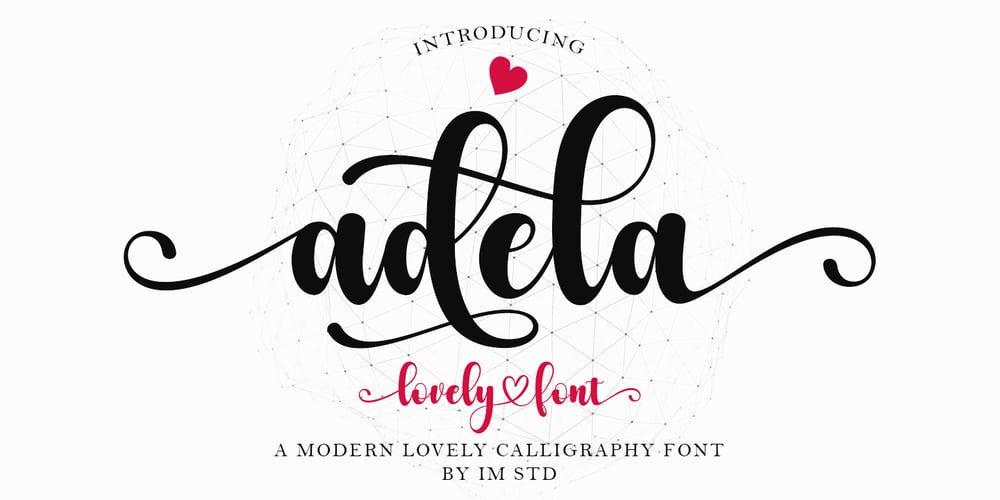
Adela Font Family was designed by Ikhsan Maulana and published by IM Studio. Adela contains 1 styles and family package options. Adela Script is modern calligraphy. Bold, elegant & fun vintage script font. Can be used for various purposes such as logos, wedding invitations, t-shirts, letterhead, signage, news, posters, badges etc.Adela Script features glyphs and alternate characters, ligatures, swashes, and multiple language support.To enable the OpenType Stylistic alternative, you need a program that supports OpenType features such as Adobe Illustrator CS, Adobe Indesign & CorelDraw X6-X7.How to get access to alternative glyphs from open type fonts: http://youtu.be/iptSFA7feQ0There are additional ways to access alternatives/swashes, using the Character Map (Windows), Nexus Font (Windows), Font Book (Mac) or a software program such as PopChar (for Windows and Mac).How to access all alternative characters, using Windows Character Map with Photoshop: https://www.youtube.com/watch?v=Go9vacoYmBw